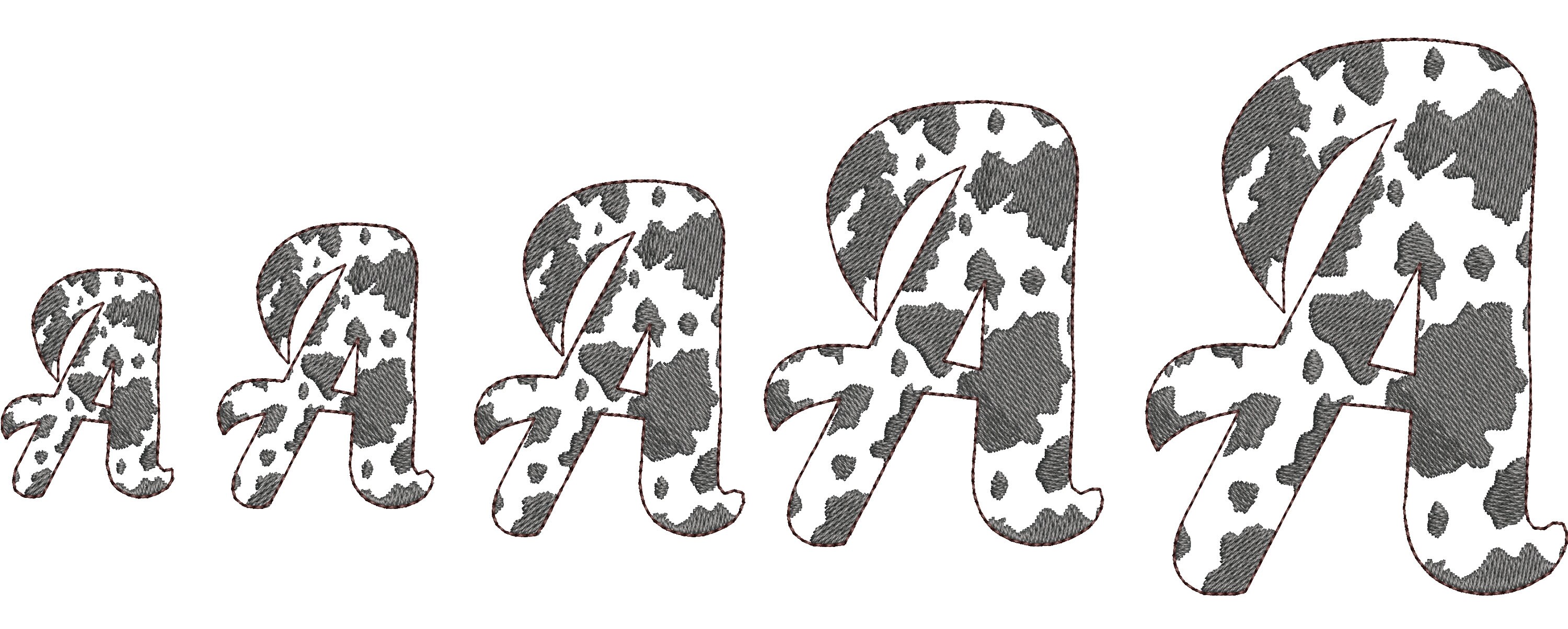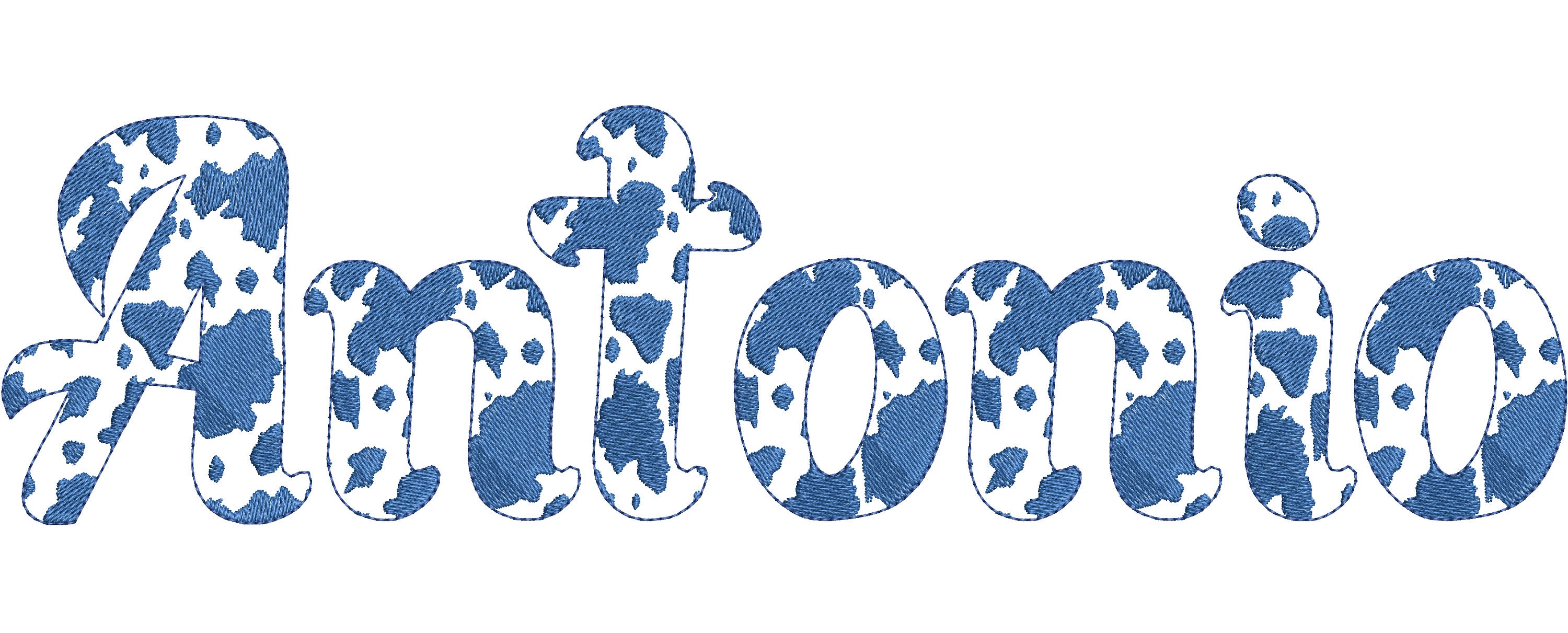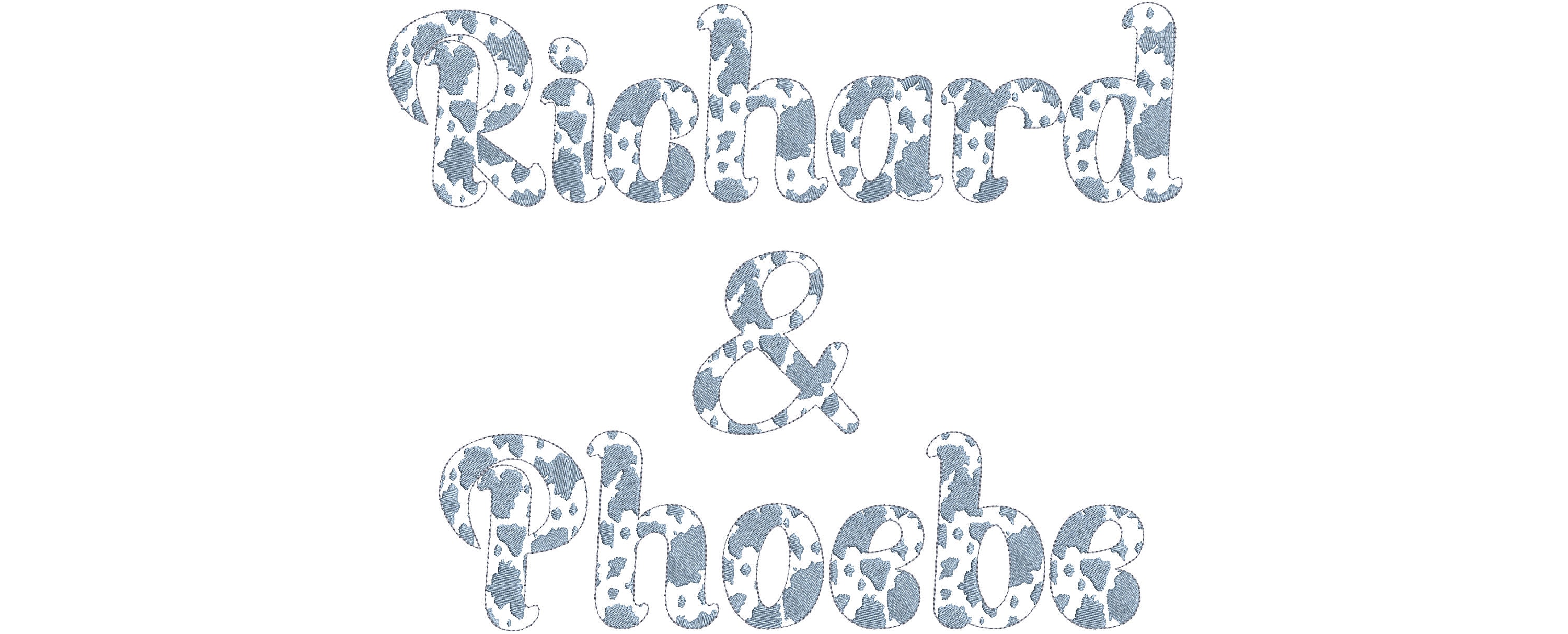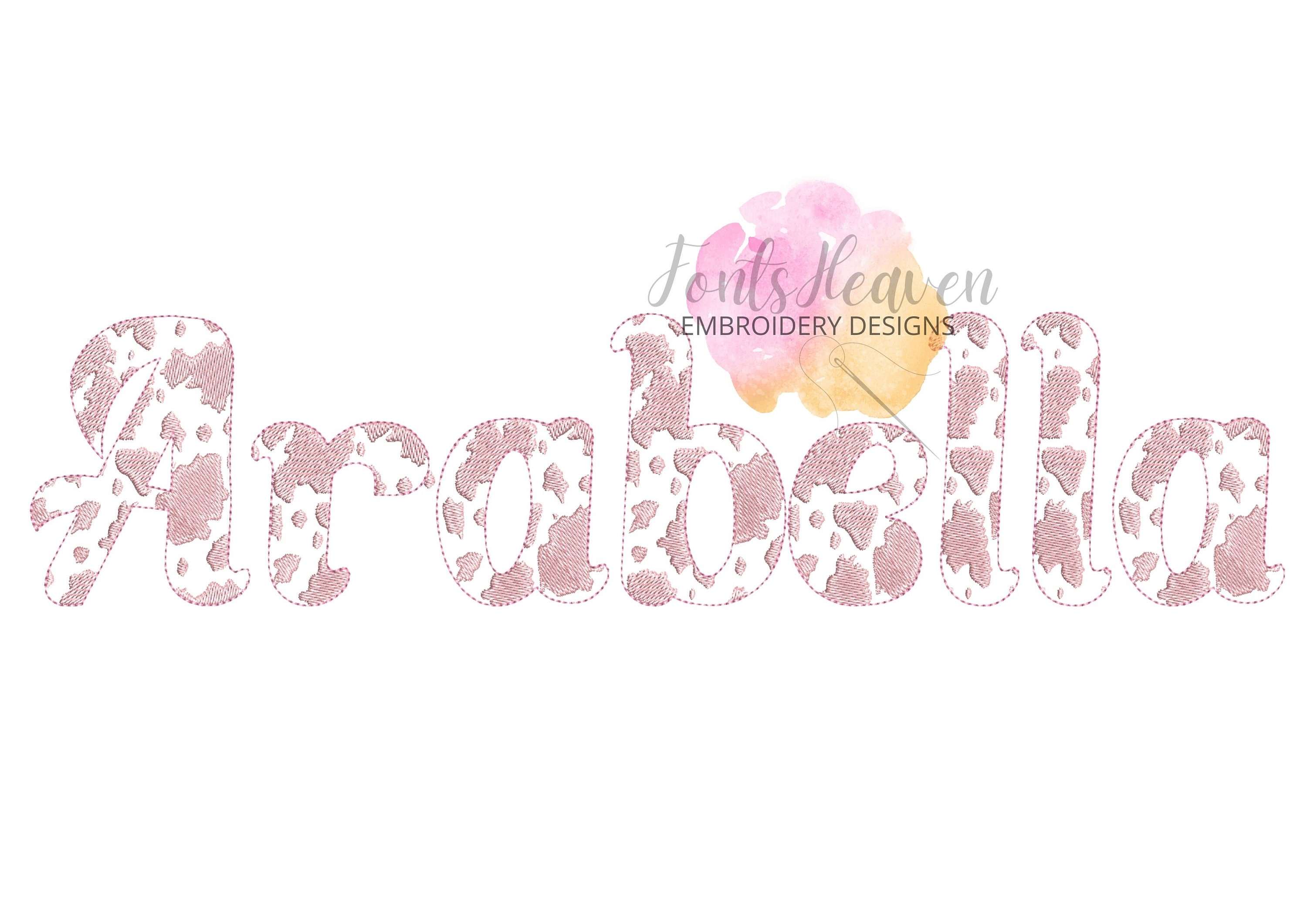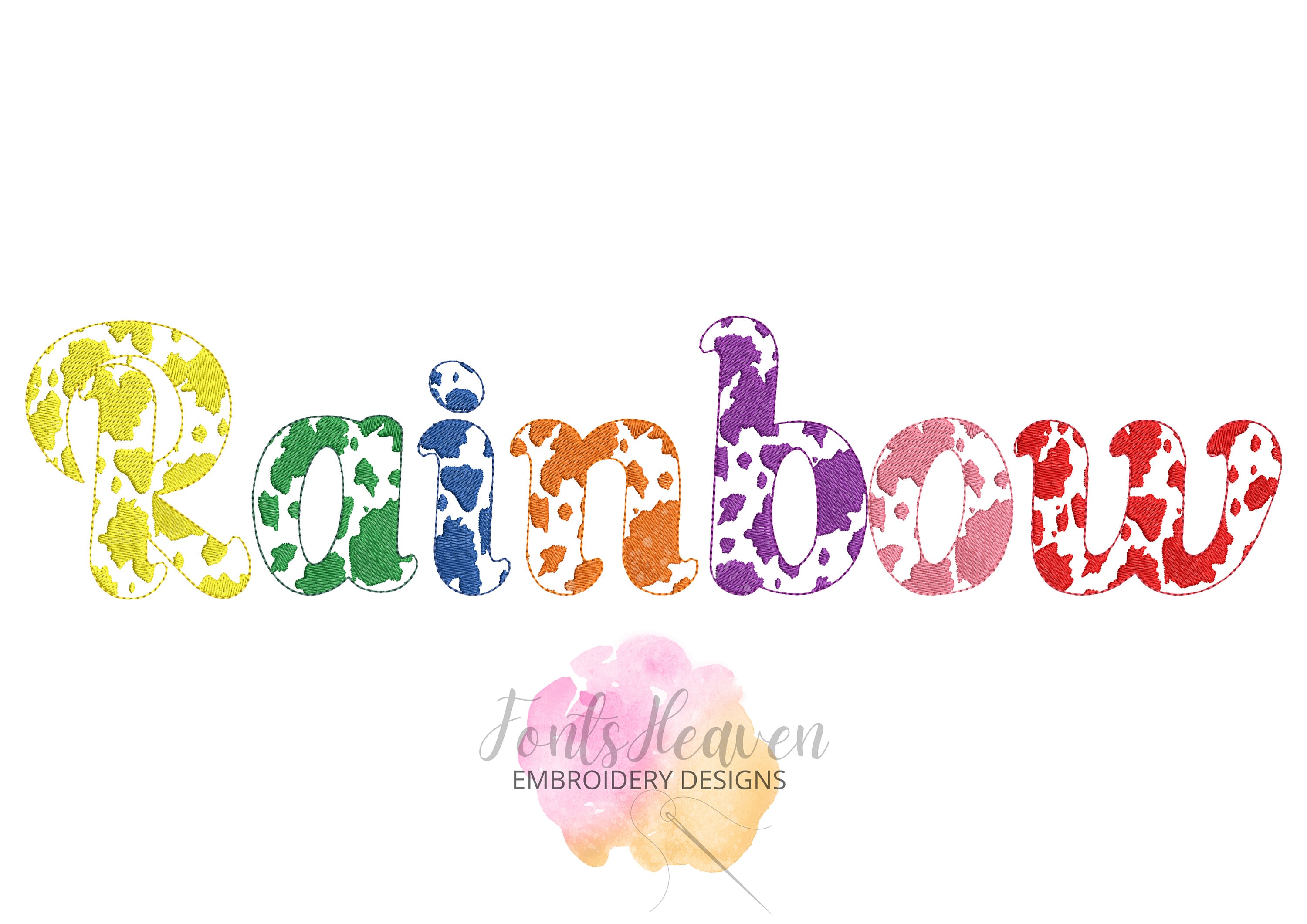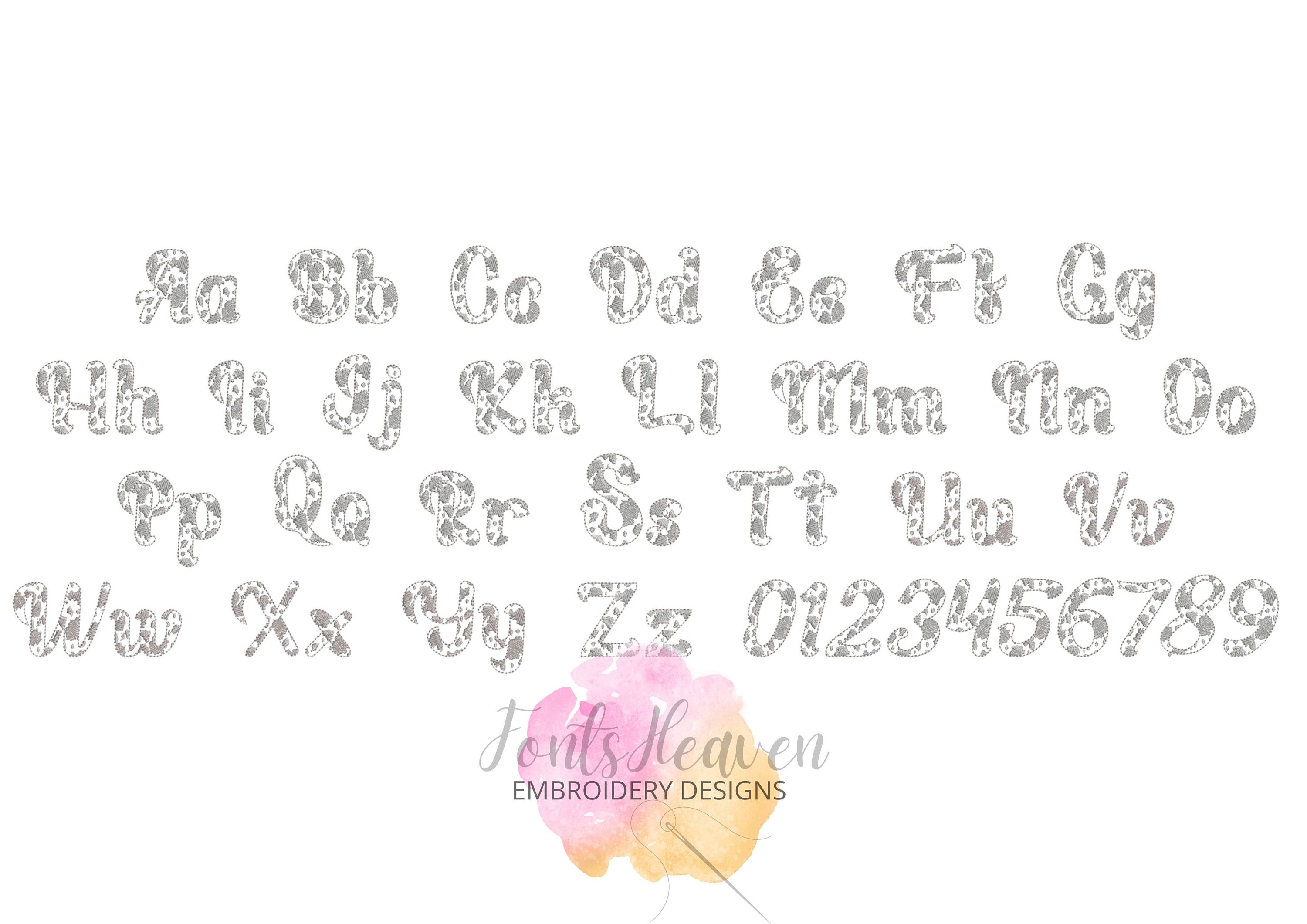
Cow spots cowgirl script handwritten cursive Font alphabet machine embroidery designs from 1.6 thru 6 inches, monogram name BX
This is a light stitch font. The cow spots are fill stitched and the fabric looks through. Awesome effect!
Uppercase and lowercase letters, and numbers.